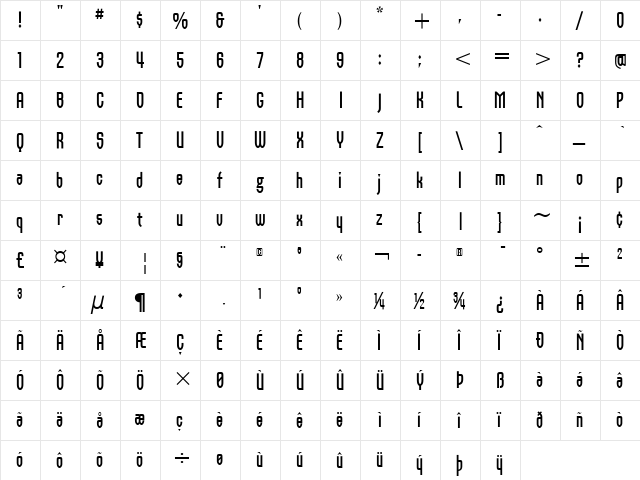
Orbon ITC Bold
Design Context for Orbon ITC Typeface
Orbon ITC is a composed and adaptable typeface that performs quietly and consistently across a wide range of design contexts. The heavy weight commands attention and anchors typographic hierarchies.